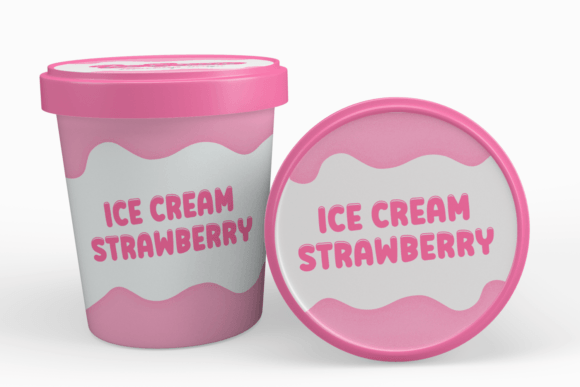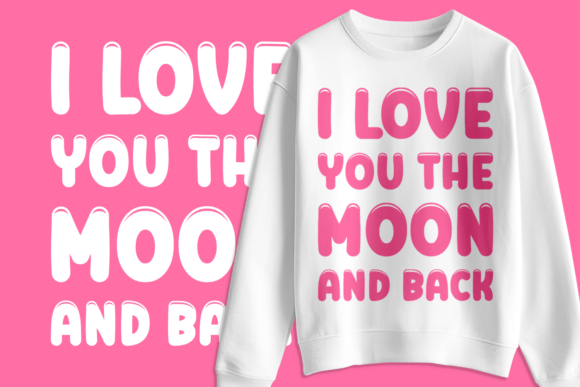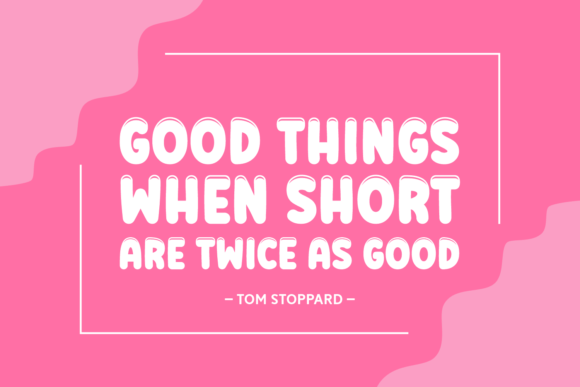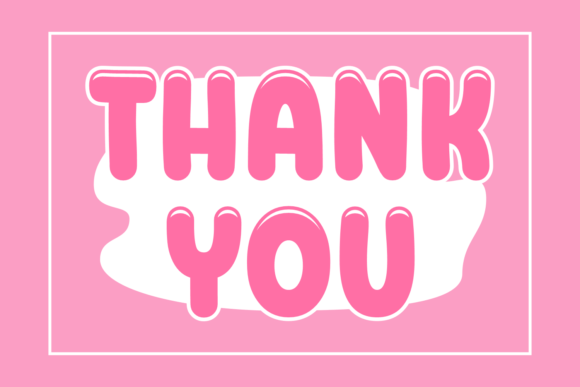
Introduction to Candy Sweet Sugar Font
Have you ever been in a creative rut, staring at a blank canvas, and suddenly, a burst of inspiration strikes? For me, it was a childhood memory of a colorful candy shop that sparked the idea to dive into the world of whimsical typography. And that’s exactly what you’ll find in the delightful Candy Sweet Sugar Font – a true marvel amongst display fonts. Its cute, chubby characters are an artful blend of playfulness and charm, making it the perfect design resource for any creative project.
As a designer, you’re always on the lookout for high-quality fonts that can elevate your work and leave a lasting impression. The Candy Sweet Sugar Font is a standout in the world of quirky and sweet fonts, offering a unique visual identity that’s perfect for children’s events, branding, or even storytelling. With its transparent background, this font is a versatile design tool that can be easily integrated into any creative project.
Key Features of Candy Sweet Sugar Font
- High-quality design resource for creative projects, ideal for food, dessert, or candy-related themes
- Features a transparent background, making it easy to customize and use in different design scenarios
- Includes a range of glyphs and characters, including uppercase and lowercase letters, numbers, and special symbols
- Designed with a playful and whimsical feel, perfect for adding a touch of sweetness to any creative project
Honest Review: Candy Sweet Sugar Font
I recently stumbled upon the Candy Sweet Sugar Font, and I must say it’s a delightful addition to any design resource. The high quality of this font is immediately apparent, making it a great choice for any creative project.
- ✨ High-quality design that’s perfect for projects requiring a sweet and playful touch.
- ✨ Translucent background that makes it easy to customize and integrate with other design elements.
- ⚠️ Limited character set, which may not be suitable for longer texts or extensive content.
- ⚠️ Not all characters are consistently designed, which can lead to inconsistencies in your design.
Overall, the Candy Sweet Sugar Font is a great addition to any designer’s toolkit. While it may have some limitations, its high-quality design and transparent background make it a versatile choice for creative projects. If you’re looking for a fun and playful font, this is definitely worth checking out.
Experiment with different font sizes, colors, and combinations to get the most out of the Candy Sweet Sugar Font. You can also use the font in combination with other design elements, such as images or graphics, to create a visually appealing design.
The Candy Sweet Sugar Font is perfect for a variety of creative projects, including social media graphics, presentations, reports, and more. It’s also a great choice for designers who want to add a touch of whimsy and creativity to their designs.
Yes, the Candy Sweet Sugar Font includes a transparent background option, making it ideal for use in creative projects that require a high level of design flexibility. You can easily customize the background to suit your design needs.